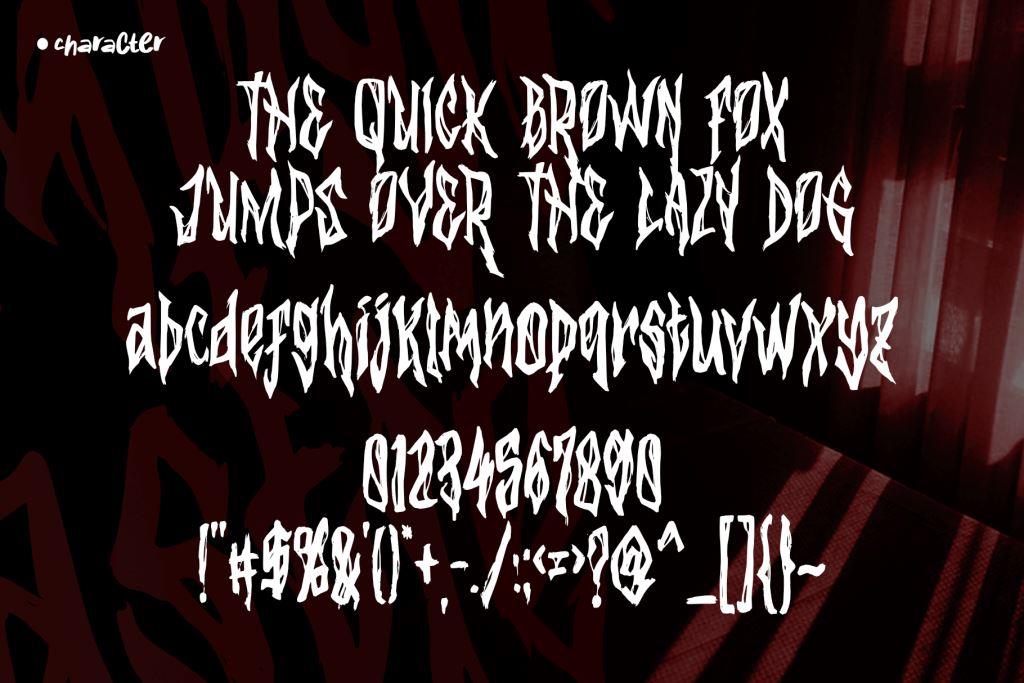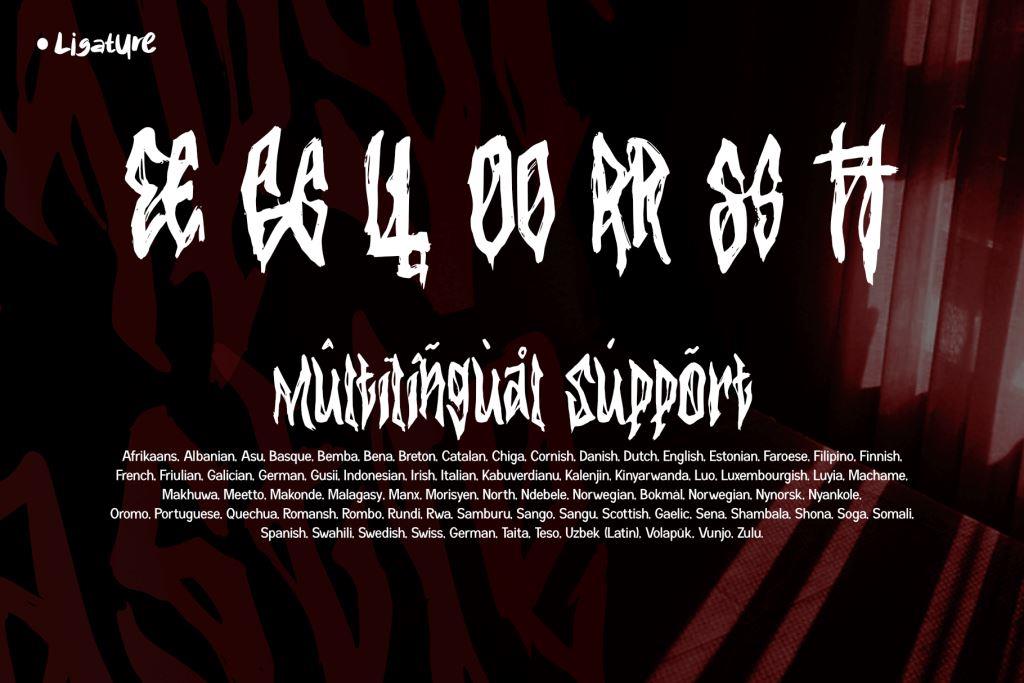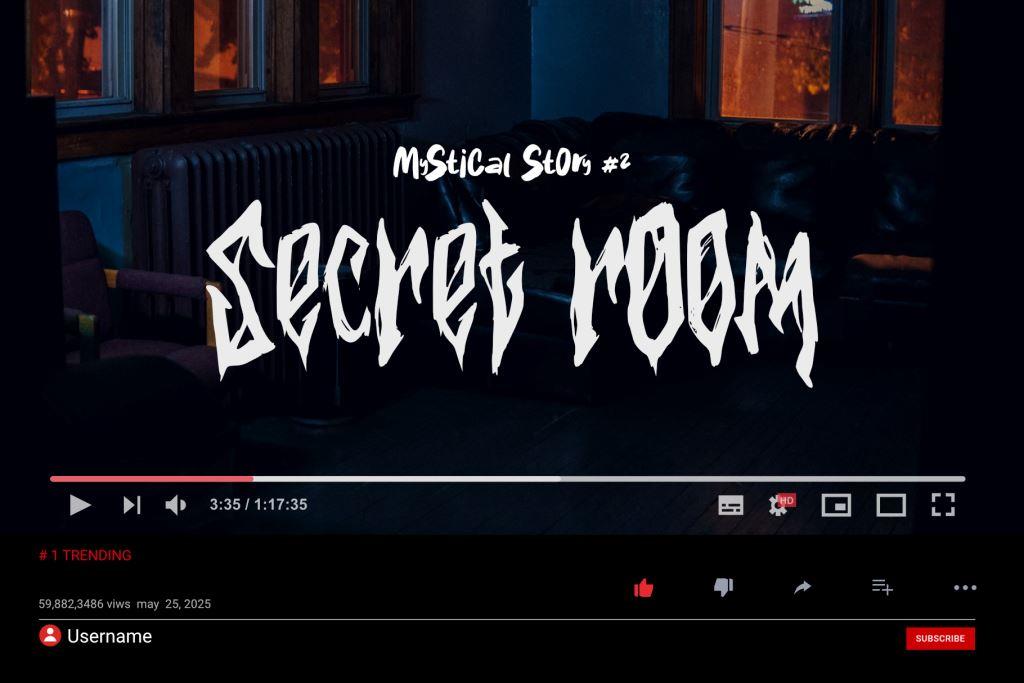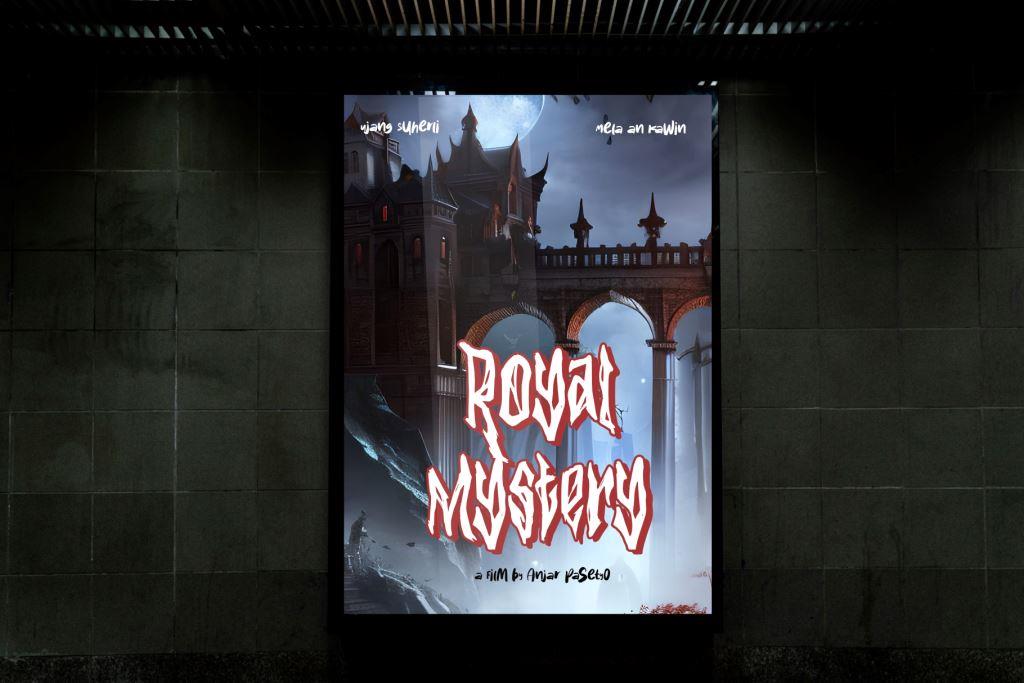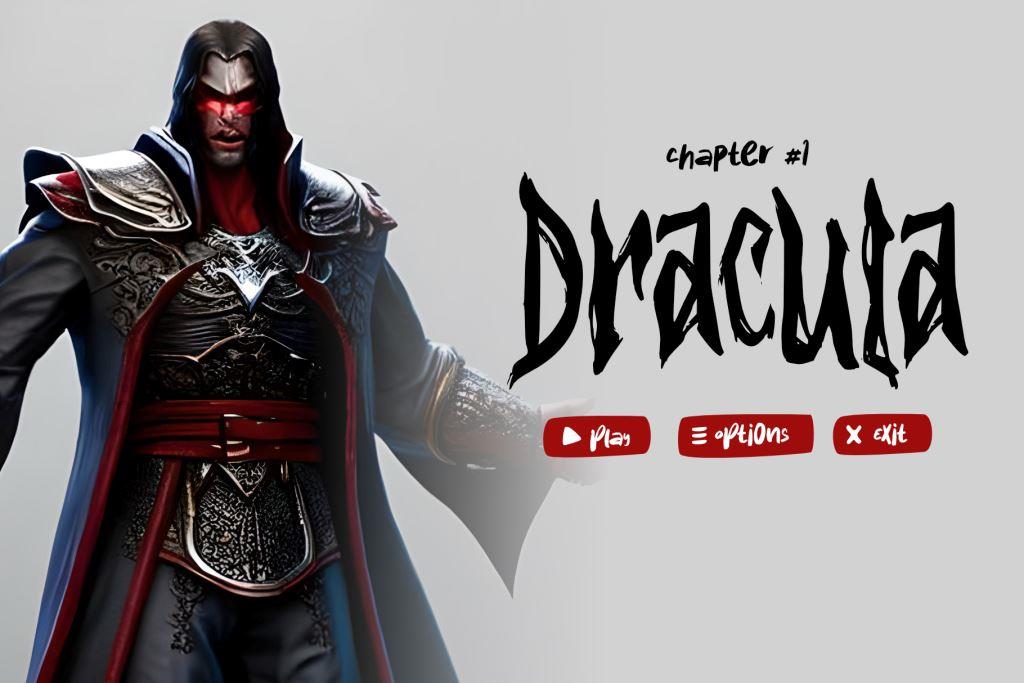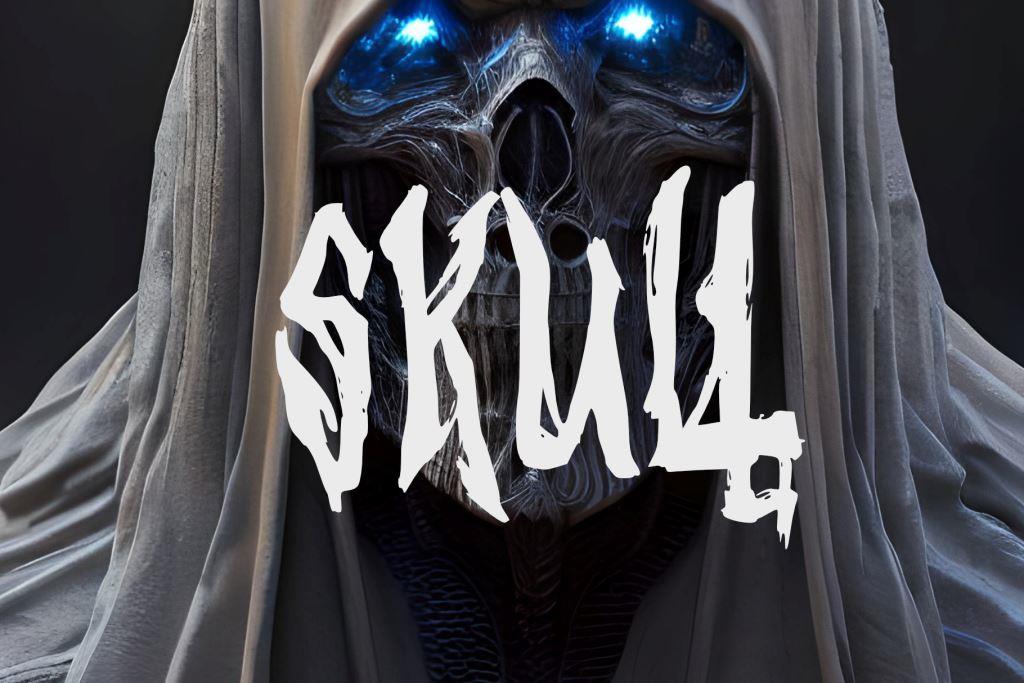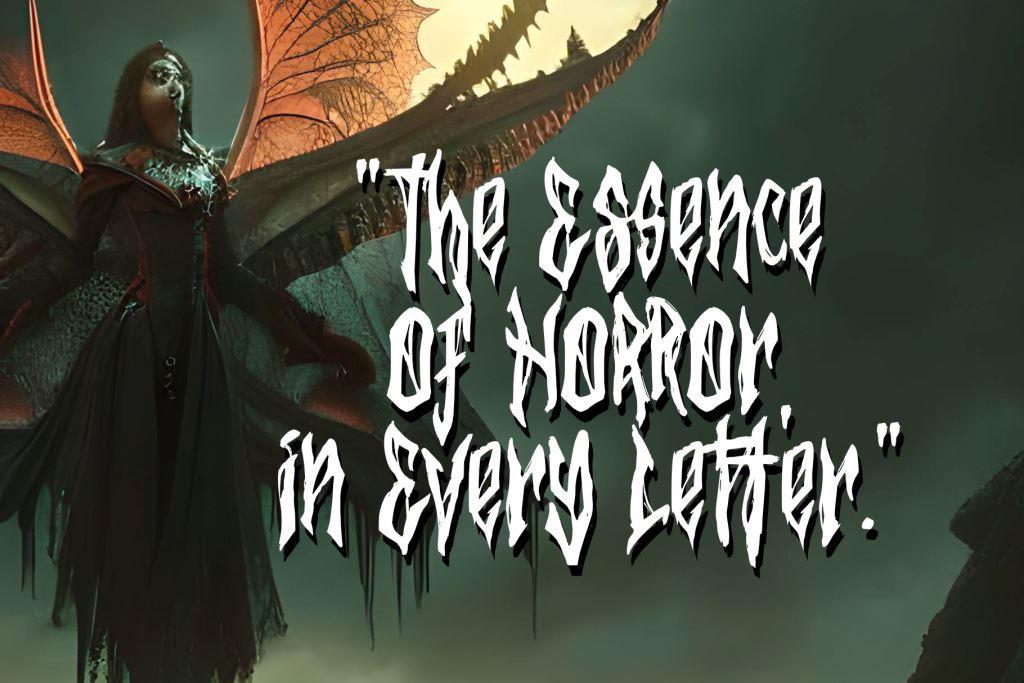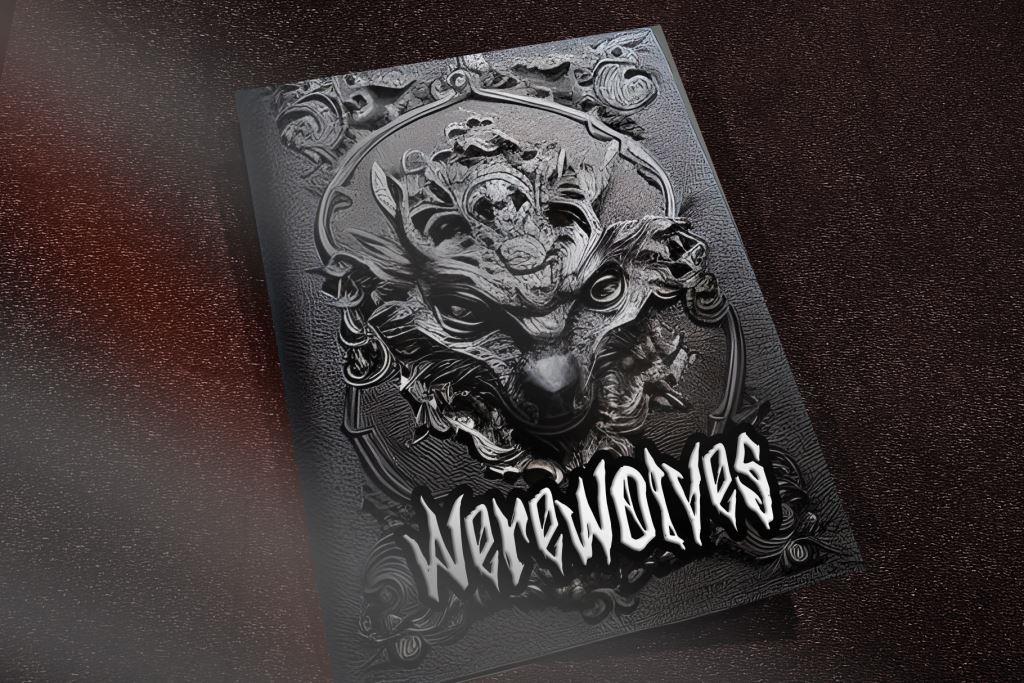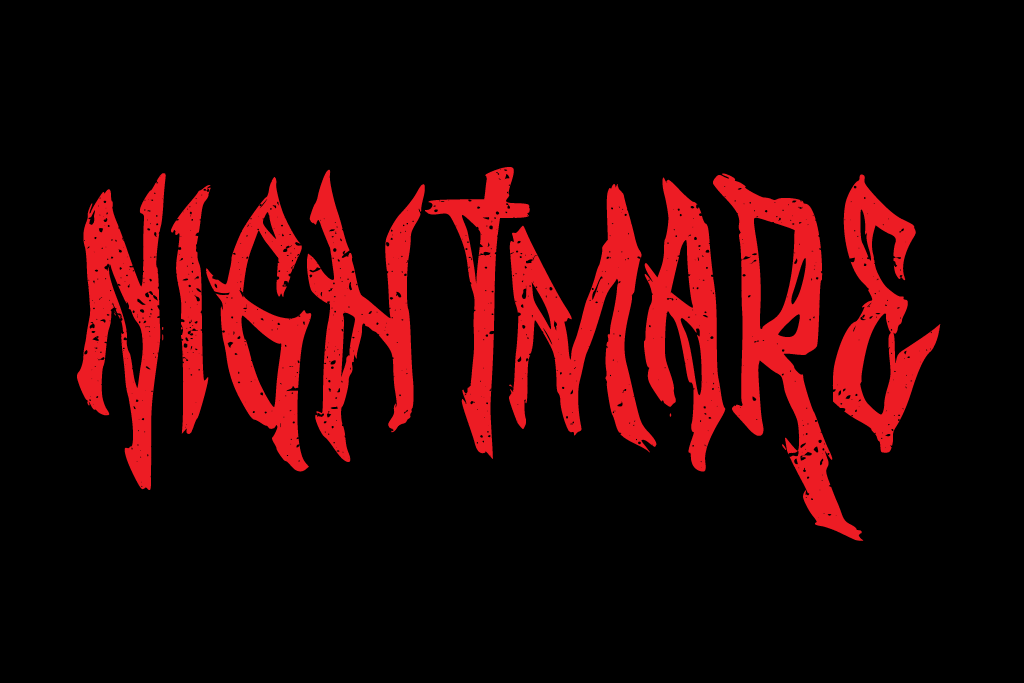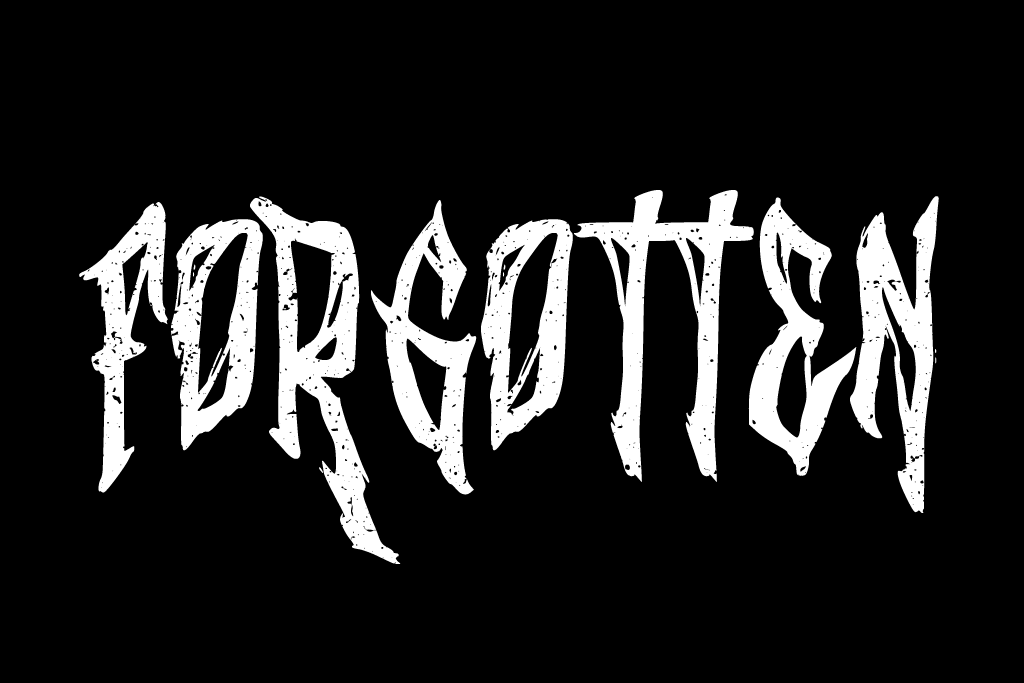
- Vampyr Castle
Vampyr Castle is a scary and captivating horror font. With mysterious and gothic details, this font provides an ancient and eerie atmosphere to any design. Suitable for use in posters, films, documentaries, YouTube, novels, celebrations, games, and other designs with a horror theme.
With its large and unique letter size, Vampyr Castle gives a monumental and grand impression like an old castle. This impression is even more noticeable when used in titles or headlines, providing a dramatic impression that can attract the attention of readers and viewers.
When used, Vampyr Castle provides flexibility and ease for designers to apply it to various designs.
With Vampyr Castle, designers can create unique and scary designs that will leave a deep impression on viewers. A creepy and dark atmosphere will be present in every artwork created with this font, creating an unforgettable horror experience.
+ Ligature
+ Multilingual Accent